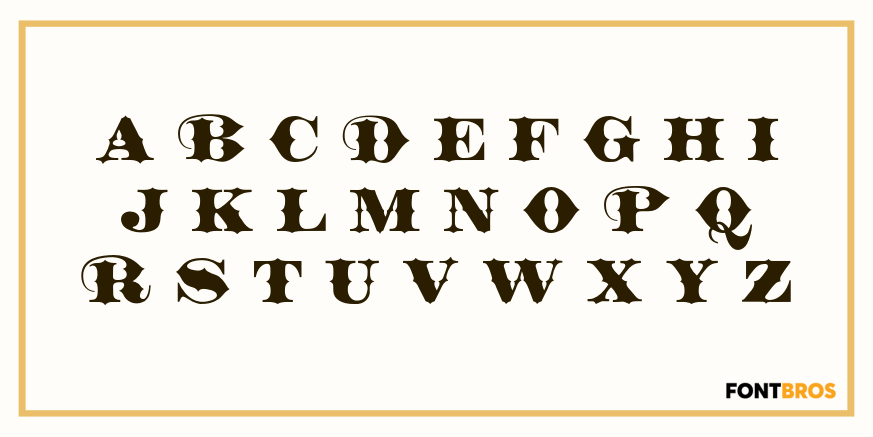
Barbary Coast
Font Family by Solotype
In one of our yearly type hunts, we came across the ancestor of this font, much wider and more decorative, with fine outside shading. Condition was poor so we did the obvious, cutting out the excess decoration and condensing the face optically. It reeks of dancing girls and drunken sailors and other colorful attributes of Old San Francisco.